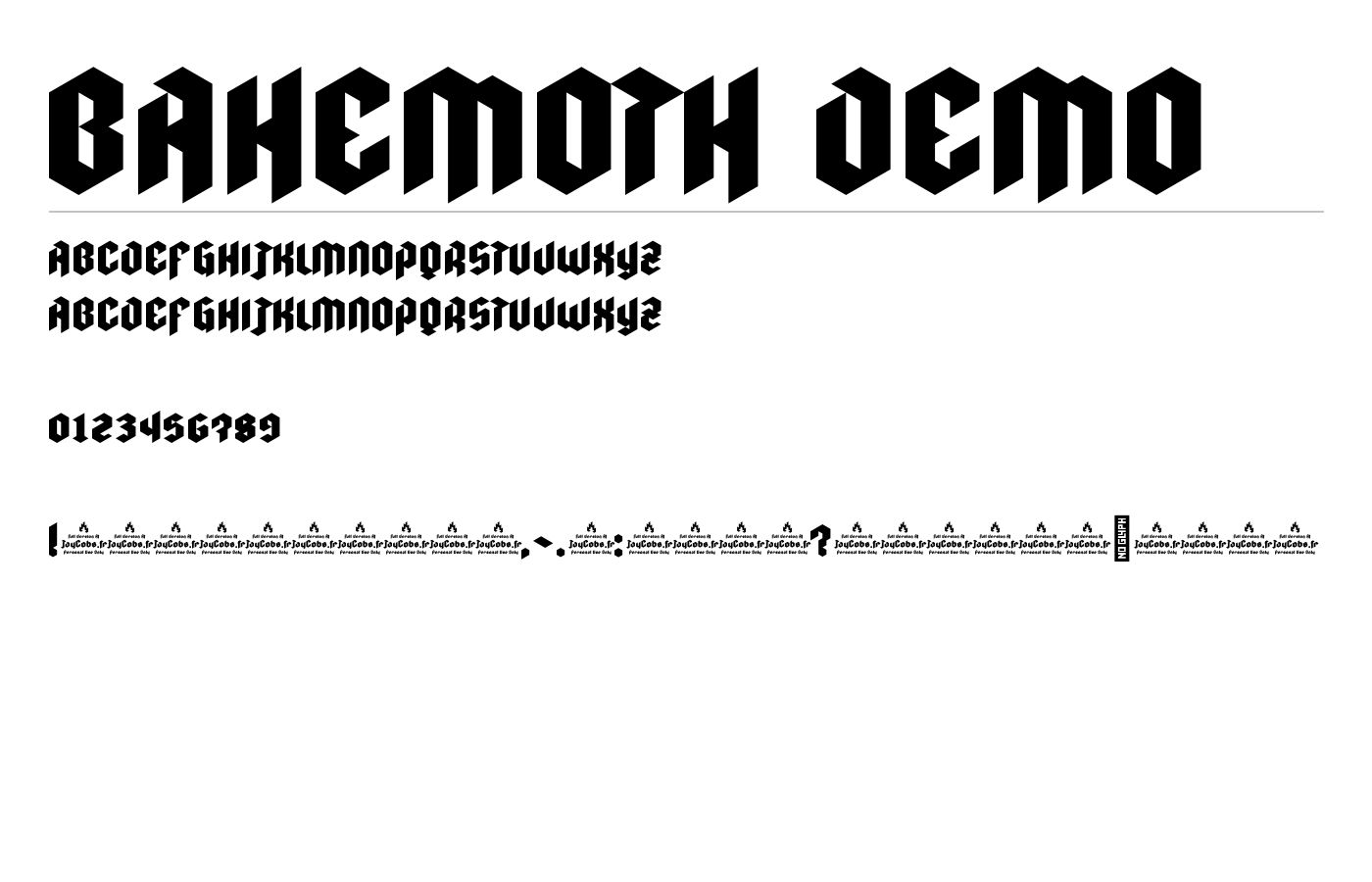
Bahemoth DEMO is a bold, blackletter-inspired display font characterized by its heavy weight, sharp angular strokes, and high contrast between thick and thin lines. This striking, gothic-style typeface exudes a strong, dramatic presence perfect for creating impactful headlines, logos, or branding with a rebellious or vintage edge. Its unique letterforms and dense texture make it best suited for designs seeking a bold and expressive look rather than for body text.
Bahemoth DEMO Font